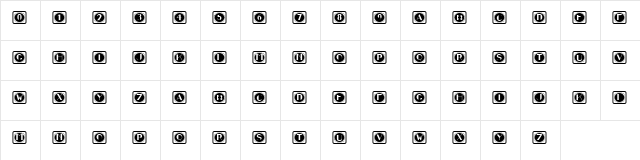
Retrospective Capitals 7 Regular
Design Context for Retrospective Capitals 7 Typeface
Retrospective Capitals 7 wears its vintage influences proudly, with letterforms that recall mid-century signage, classic packaging, and nostalgia-driven design.
Font Pairing: Combine Retrospective Capitals 7 with a simple slab or neutral sans — period-accurate companions reinforce the vintage feel without competing for attention.
Pro Tip: Use Retrospective Capitals 7 for headlines and pull quotes rather than body copy — its personality is best appreciated in short, focused bursts.